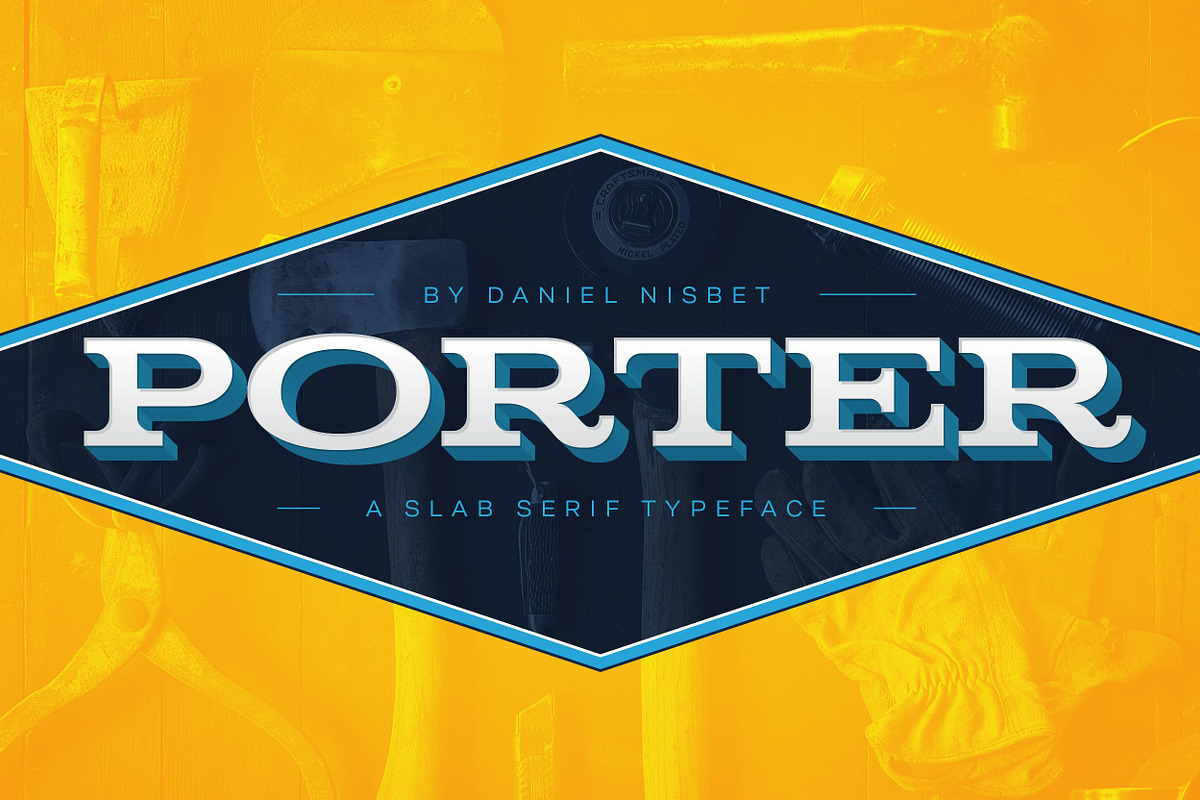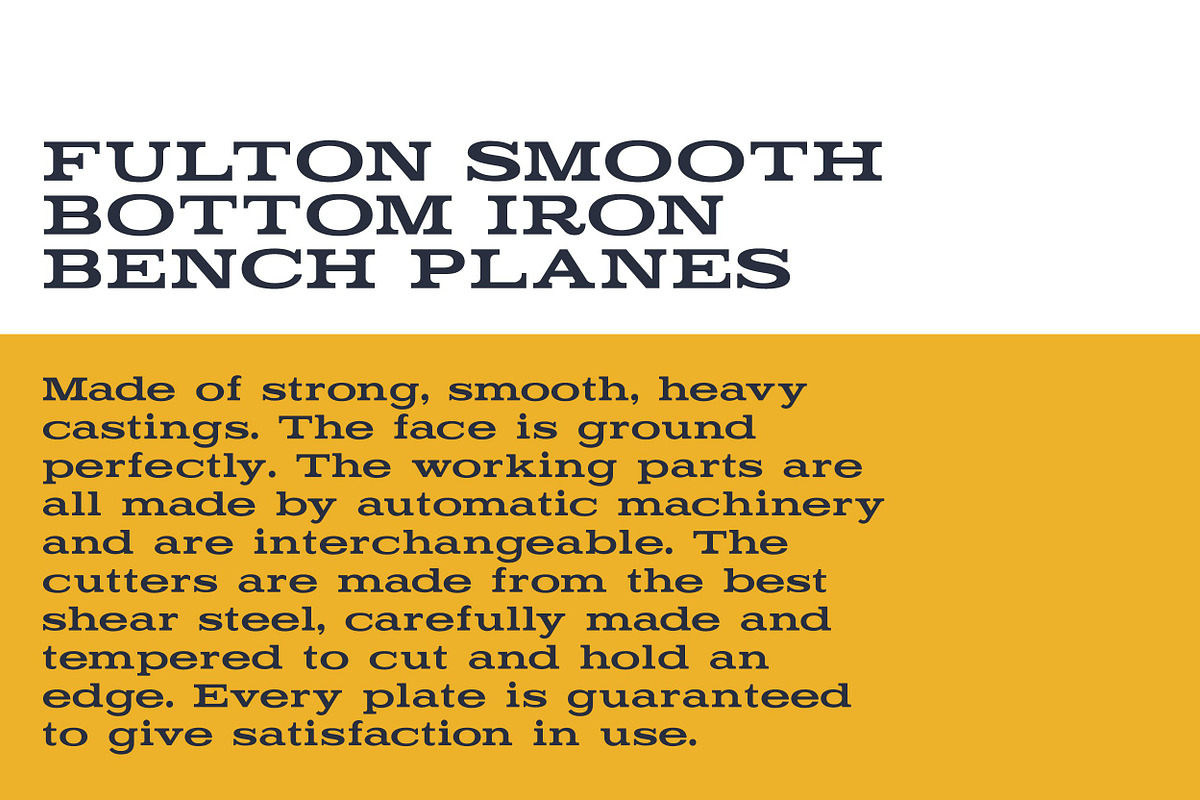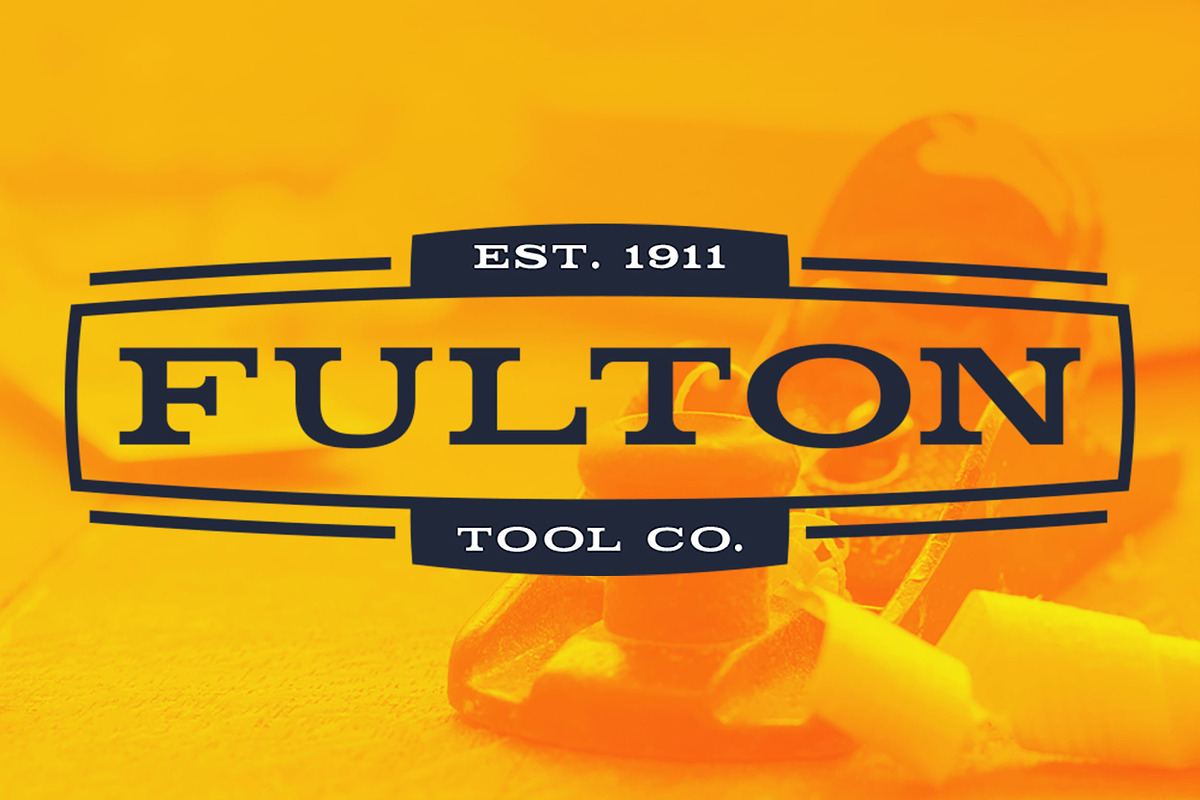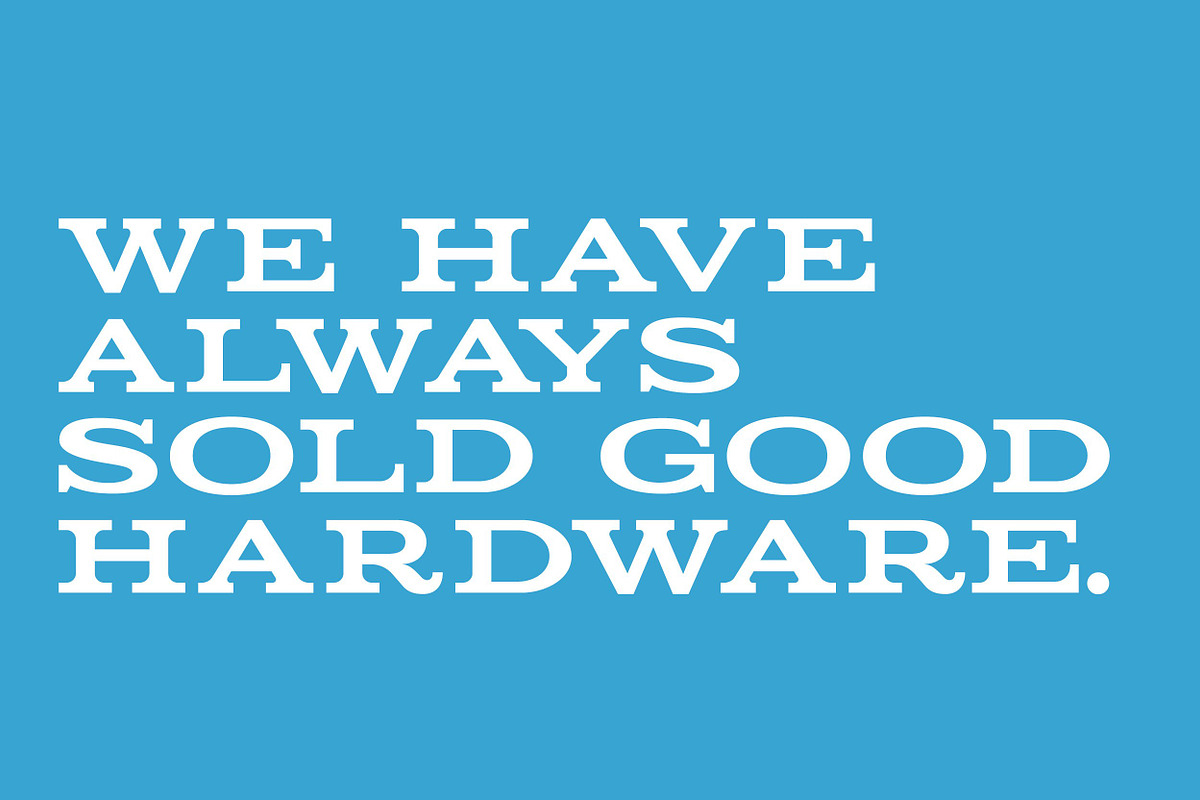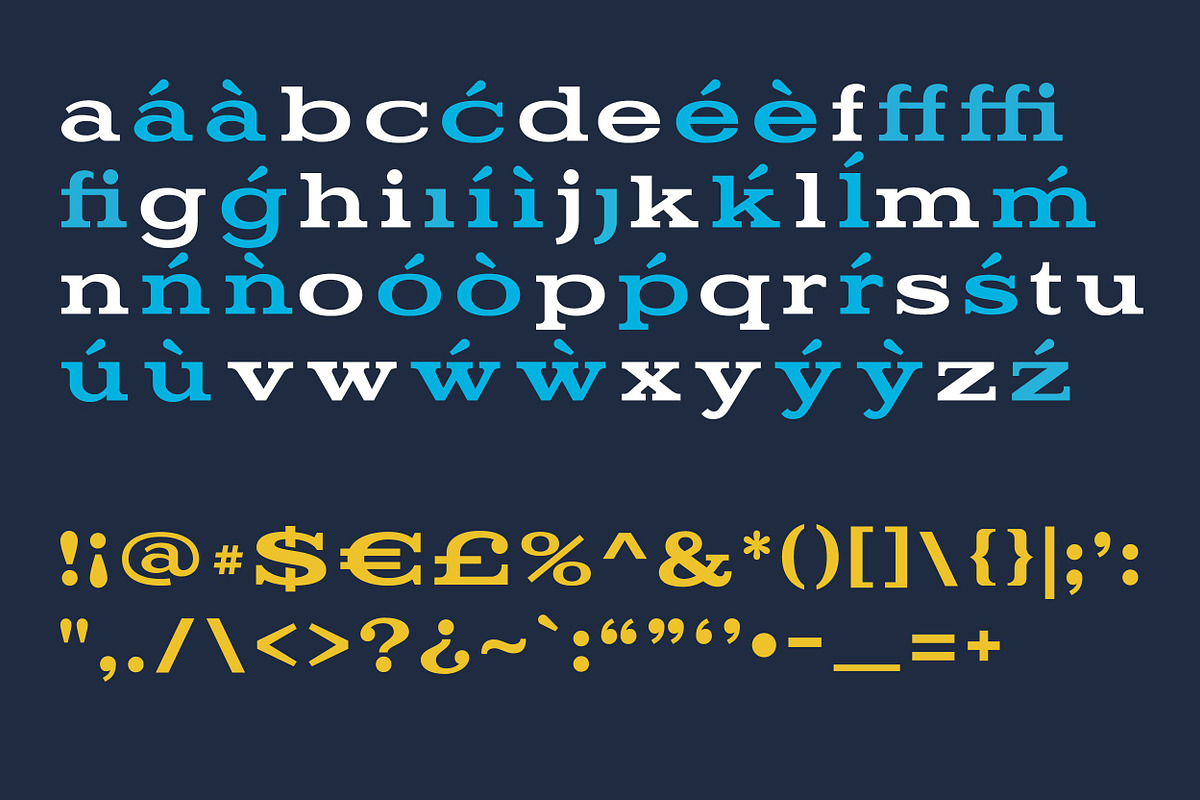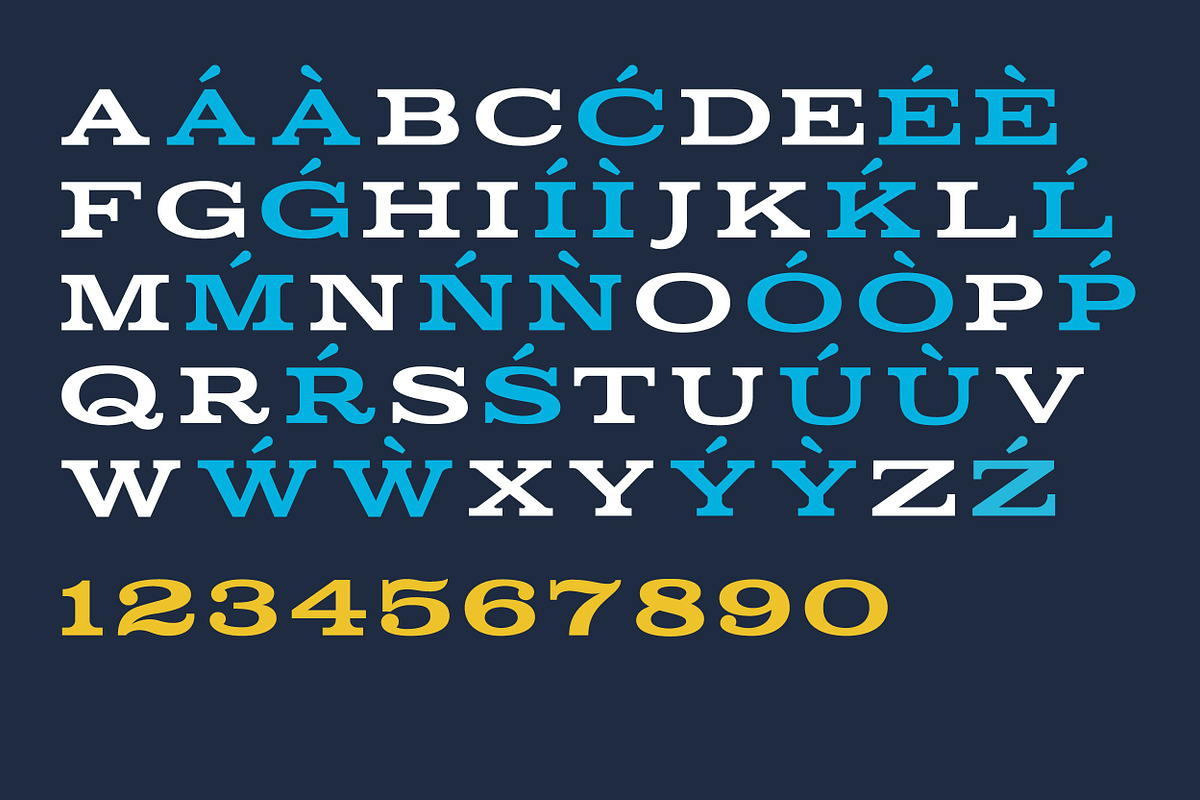
Porter - A Slab Serif Display Font
Porter - A Slab Serif Display Font by Daniel Nisbet is a font selected for branding, posters, packaging, typography.
- Porter Display
Why Porter - A Slab Serif Display Font is worth a look
Porter - A Slab Serif Display Font by Daniel Nisbet fits naturally into Branding, posters, packaging, typography.